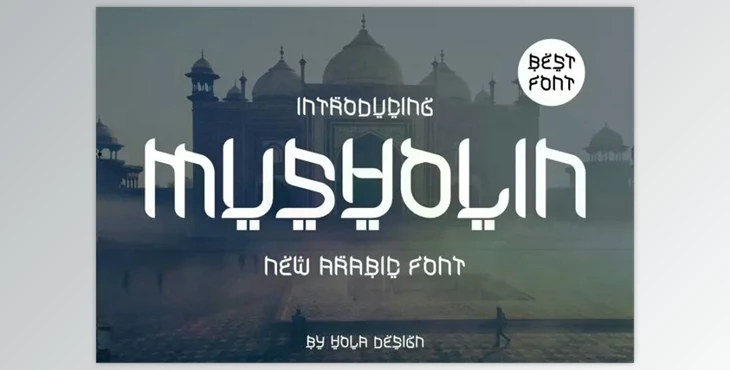
Musholin Font: Musholin Font stands out with its unique and distinctive style, making it a perfect choice for various design purposes. This versatile font is ready to elevate your creations, whether you're working on labeling, movie scenes, posters, movie titles, gigs, album covers, logos, etc.